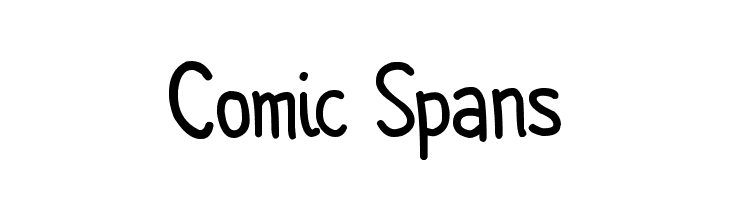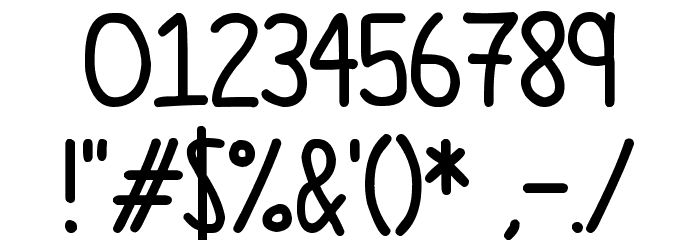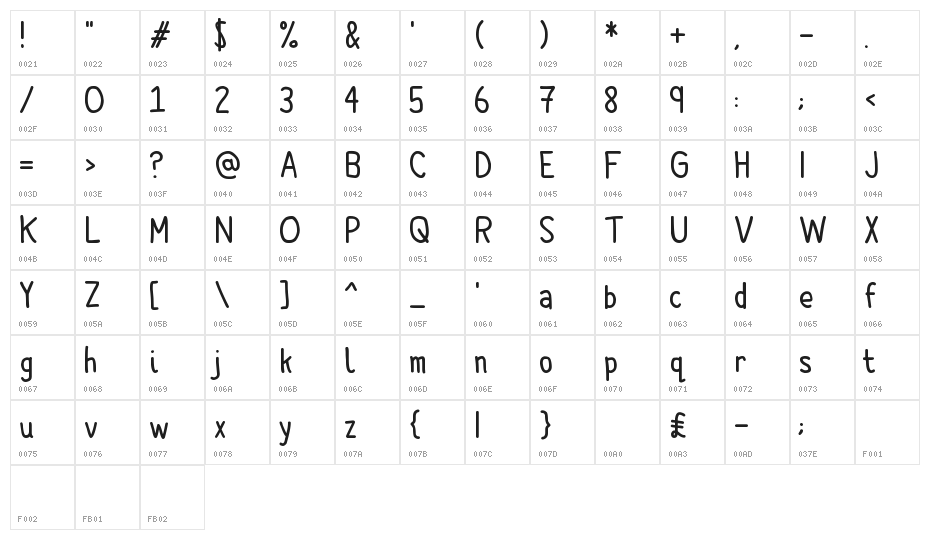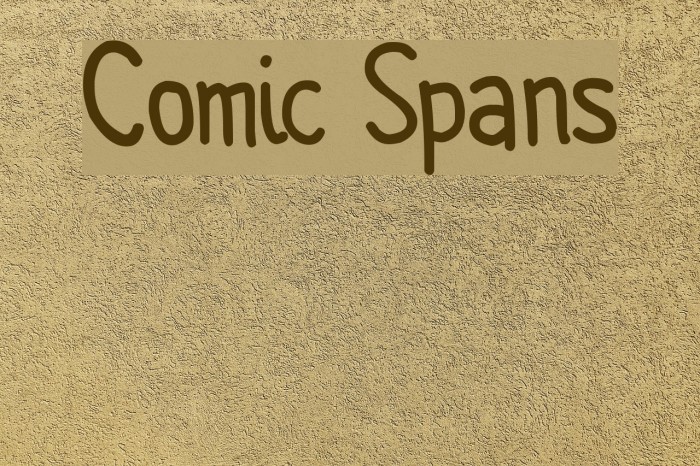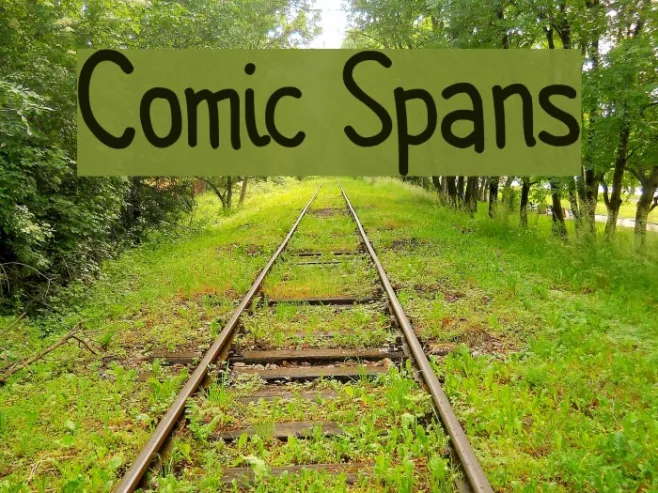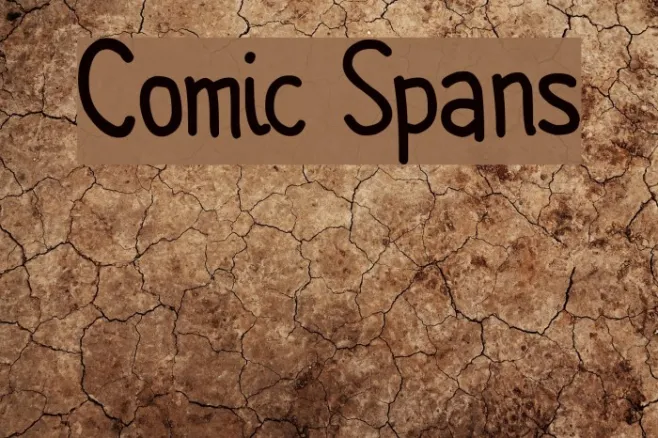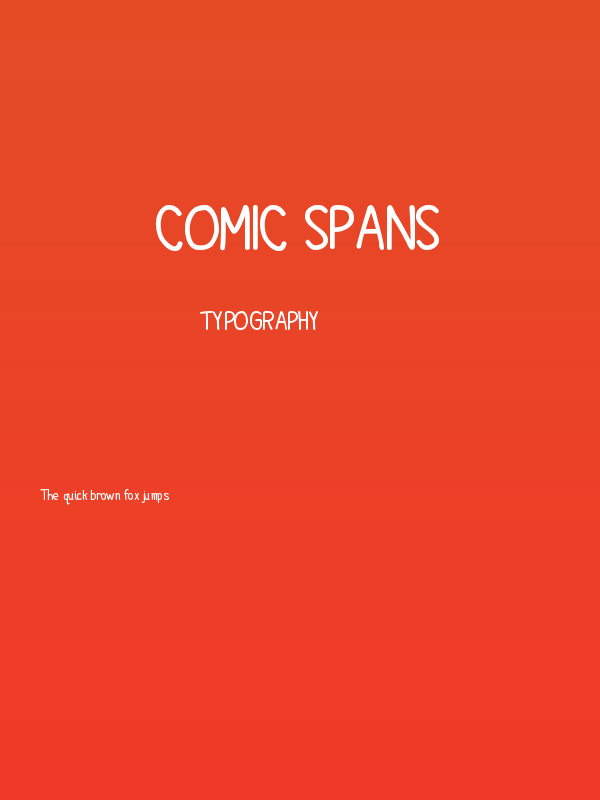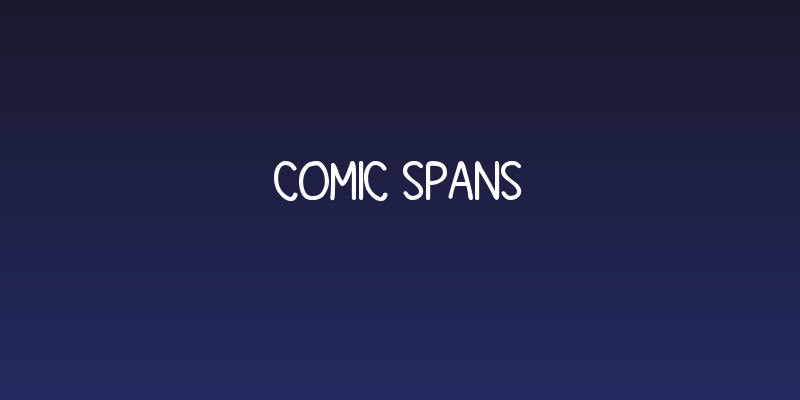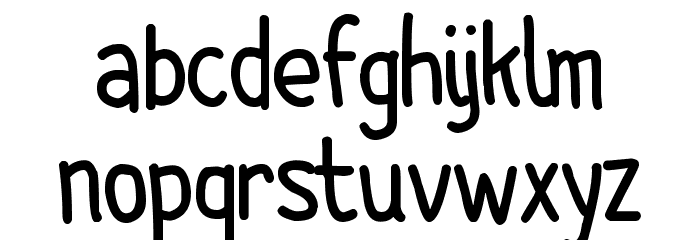
Comic Spans Font
Comic Spans Description
This playful and informal font features rounded, slightly irregular letterforms that give it a casual and friendly appearance. The characters are bold and have a consistent stroke width, contributing to a uniform look. The font includes a full set of uppercase and lowercase letters, numerals, and a variety of special characters. Its design is reminiscent of handwriting, making it approachable and easy to read. The spacing between characters is normal, ensuring good readability without feeling cramped.
| Use Case | Headlines, Logos, Informal text |
| Proposed Projects | Ideal for comic books, children's books, casual invitations, and playful branding. |